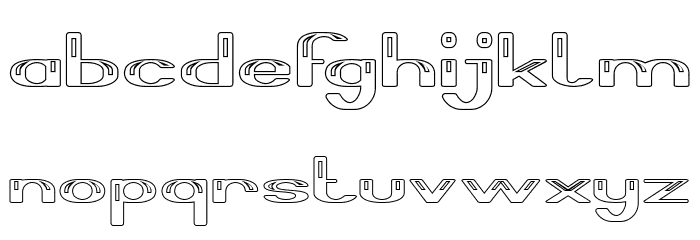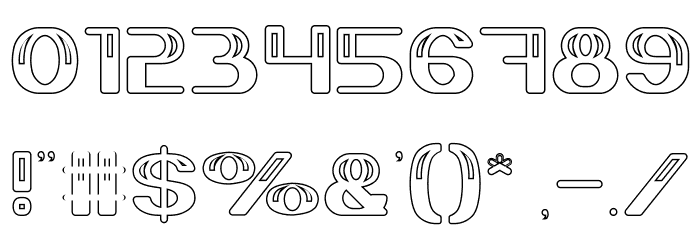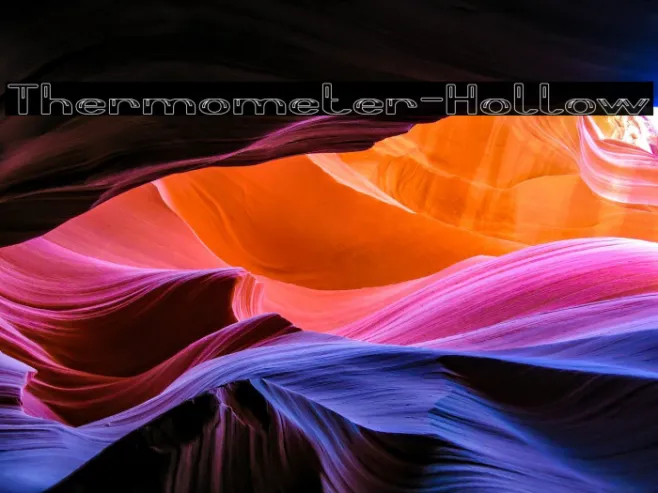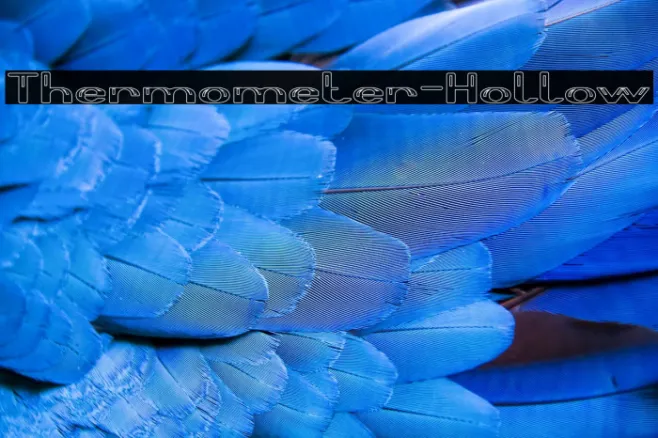
Thermometer-Hollow Font
This font features a unique hollow design, where each character is outlined with a consistent stroke, creating a modern and eye-catching appearance. The uppercase and lowercase letters maintain a uniform style, with rounded edges and a geometric structure that adds a contemporary feel. The numerals and special characters follow the same design principles, ensuring a cohesive look across all elements. The hollow nature of the font gives it a light and airy quality, making it suitable for designs that require a touch of elegance and modernity. The characters are well-spaced, providing clarity and readability despite the intricate design.
A modern, hollow font with geometric outlines and rounded edges.
- Proposed Projects: Ideal for branding, posters, and digital media where a modern and stylish look is desired.